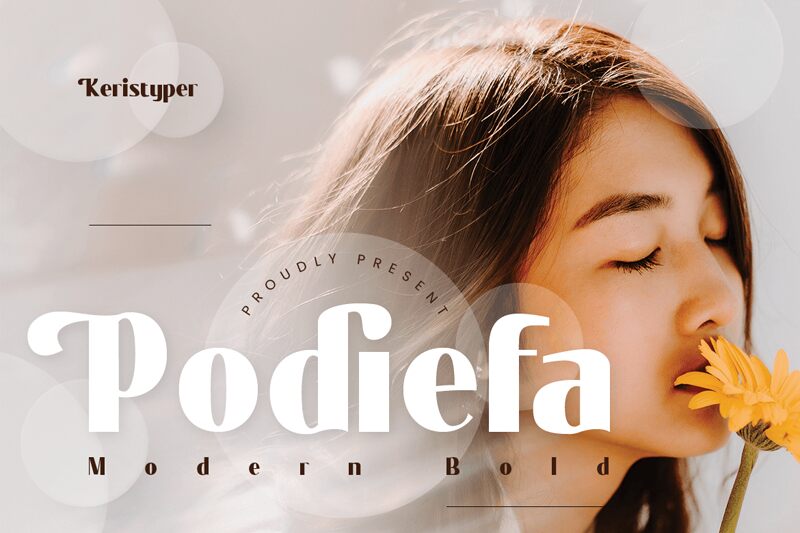
Podiefa Regular
Podiefa font is a bold sans serif by Tezar Tantular with a striking style. Its geometric nature enables the high-contrast characters to come together for an impactful display every reader will recognize. But what makes this modern font special is its true versatility which transcends ordinary dsigns and brings forward an extraordinary repertoire to explore.
Have fun experimenting with Podiefa in magazines and newspapers, blogs, branding designs and logos, stationery projects, titles and headings for books and movies, web designs, applications, or signage. Both poster designs for events or advertisements can benefit from Podiefa as well as party invitations. It’s free so you won’t feel limited exploring its features either!